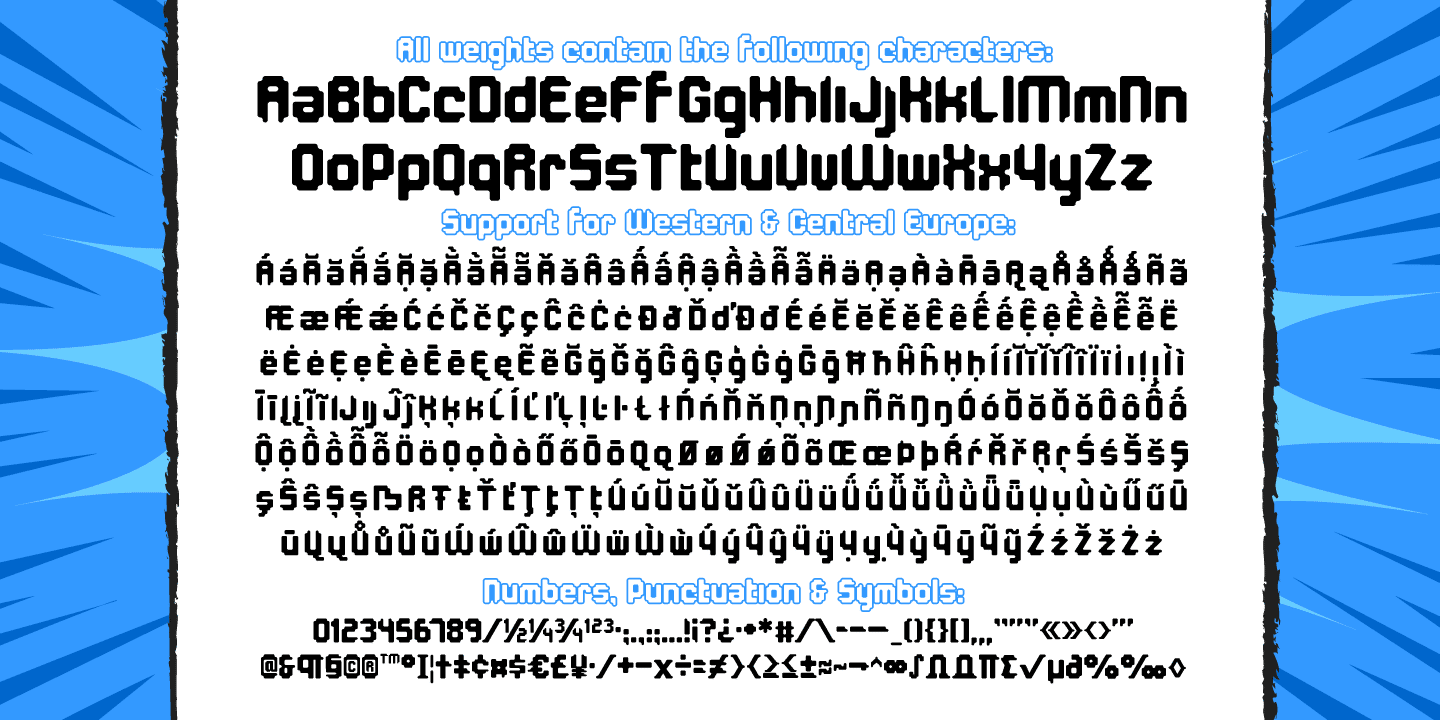
Overbyte Font is perfect for tech startup branding, software interface design, gaming logos, cyberpunk posters, digital marketing campaigns, app development projects, coding bootcamp materials, cryptocurrency websites, tech conference signage, and futuristic product packaging. This cutting-edge typeface brings authentic digital sophistication to any technology-focused design project.
Overbyte Font is exciting because it embodies the precision and innovation of modern digital technology. Its pixel-perfect geometry and contemporary letterforms reflect the sleek aesthetics of advanced computing systems, making it ideal for brands that want to communicate technical expertise, innovation, and forward-thinking digital solutions to their audience.
Overbyte Font family includes multiple weights and styles: Regular, Bold, Light, Medium, Black, Condensed, Extended, Mono, Display, and specialized tech variants. Each style maintains the distinctive digital character while providing designers with comprehensive options for creating cohesive technology branding and user interface typography.
Whether you're designing for software companies, tech startups, or digital platforms, Overbyte Font Free Download delivers professional results that resonate with tech-savvy audiences. This modern typeface combines technical precision with visual appeal, making it an essential tool for contemporary digital design. The font's clean architecture and systematic approach ensure optimal performance across both screen and print applications in technology environments.